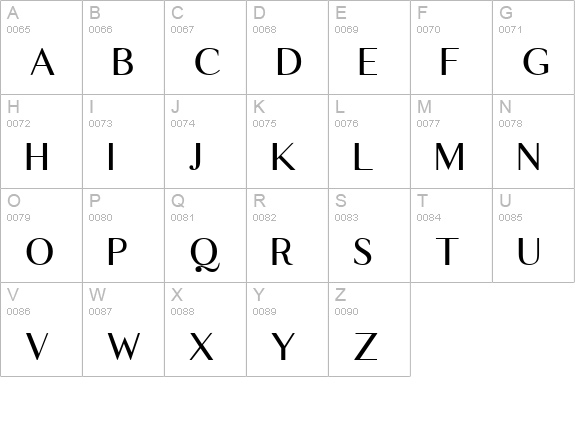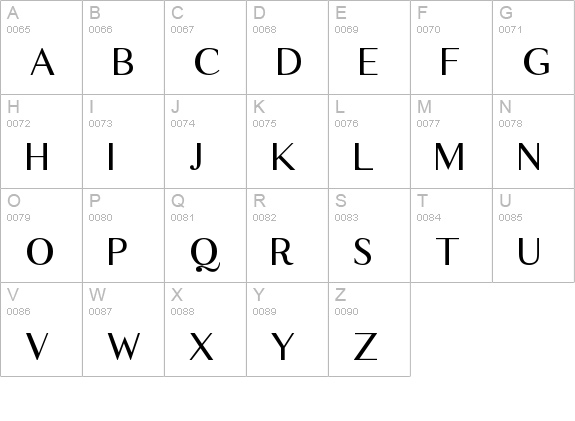
Lauderdale Font Details
Lauderdale font is a stunning and elegant typeface that exudes sophistication and charm. It is a versatile font that can be used for various design projects, from invitations and logos to headlines and branding materials. With its clean and modern lines, Lauderdale font is sure to capture attention and make a lasting impression. What makes Lauderdale font even more appealing is that it is free to download. Yes, you read that right! This exquisite font is available for free at FontsMarket.com, your one-stop destination for high-quality fonts. Whether you are a professional designer or simply someone who appreciates beautiful typography, you can now enhance your projects with the timeless beauty of Lauderdale font without spending a dime. With its wide range of weights and styles, Lauderdale font offers endless possibilities for creative expression. The bold and sleek variations are perfect for making a statement, while the lighter and more delicate options add a touch of elegance and refinement. No matter how you choose to use it, Lauderdale font will elevate your designs and bring them to a whole new level. Designed with attention to detail and a focus on legibility, Lauderdale font ensures that your message is conveyed clearly and effectively. Its smooth curves and balanced proportions make it easy on the eyes, enhancing readability across different mediums and sizes. Whether your design is intended for print or digital use, Lauderdale font will deliver flawless results every time. So why wait? Head over to FontsMarket.com now and download Lauderdale font for free. Join the countless designers and typographers who have already discovered the beauty and versatility of this remarkable typeface. Don't miss out on the opportunity to elevate your designs with the elegance and timeless appeal of Lauderdale font. Get it now and let your creativity soar!